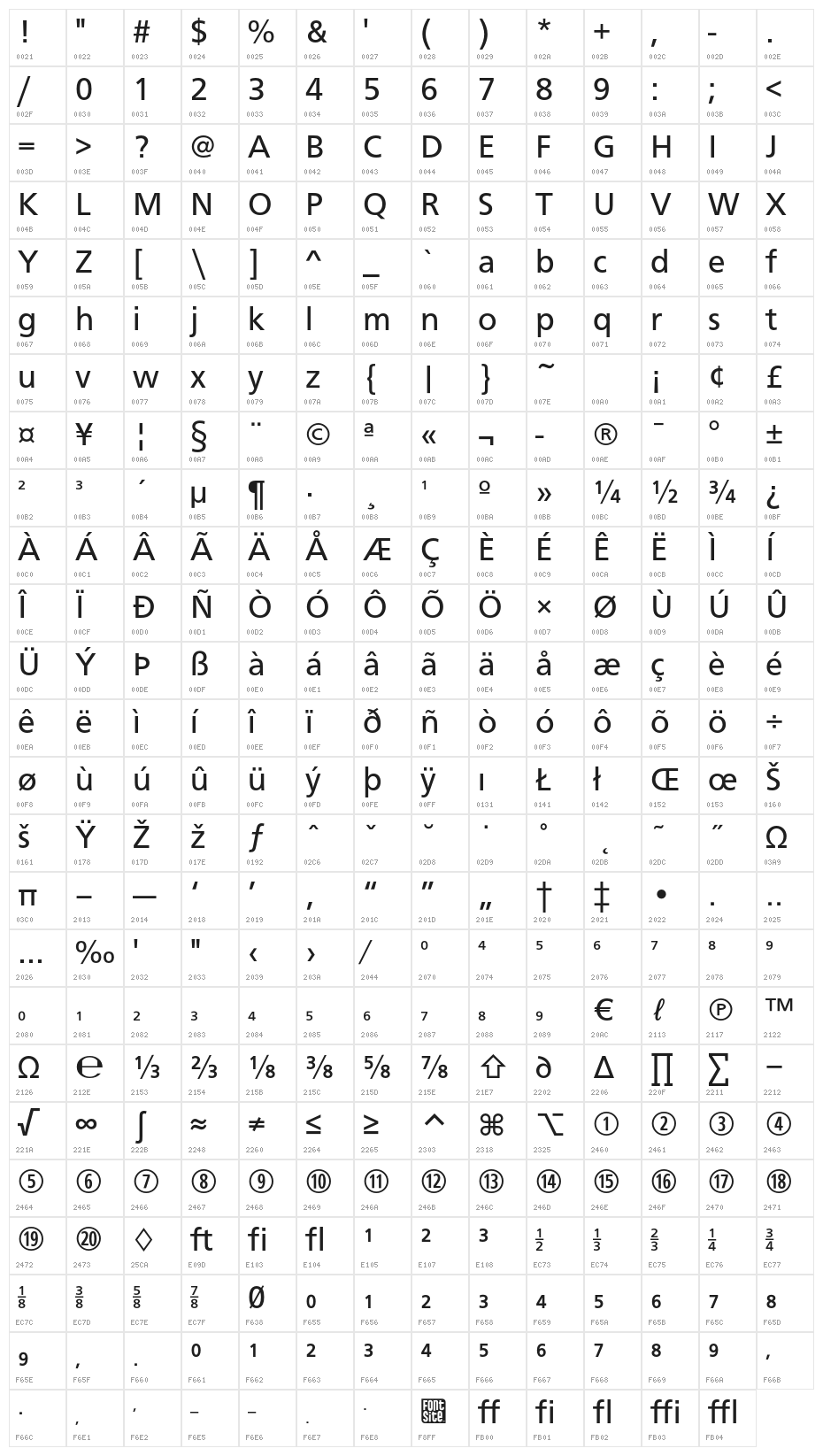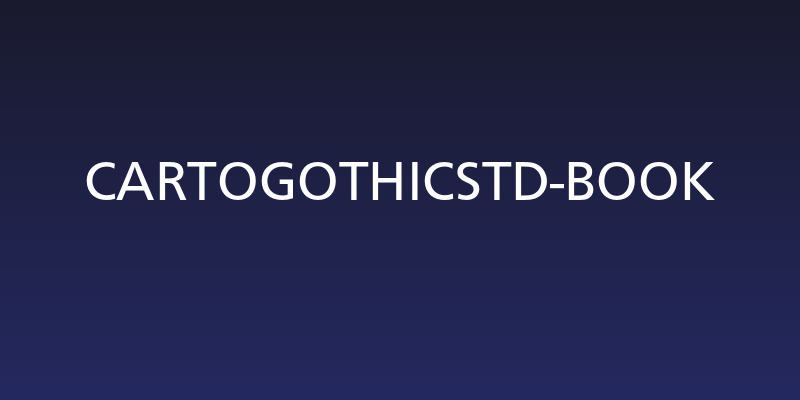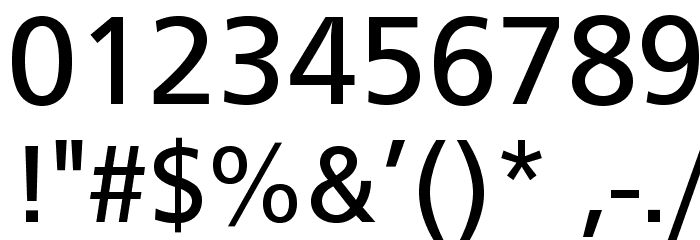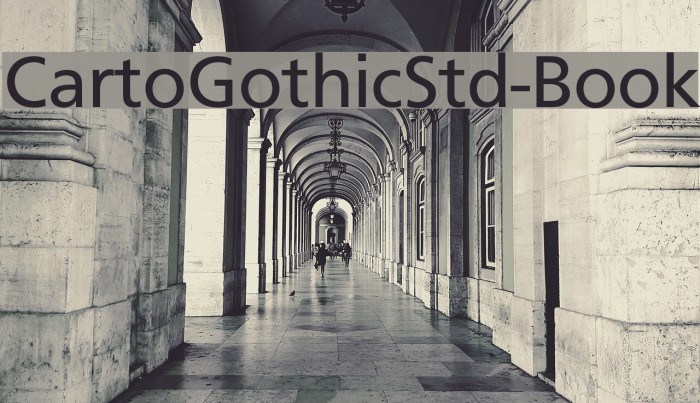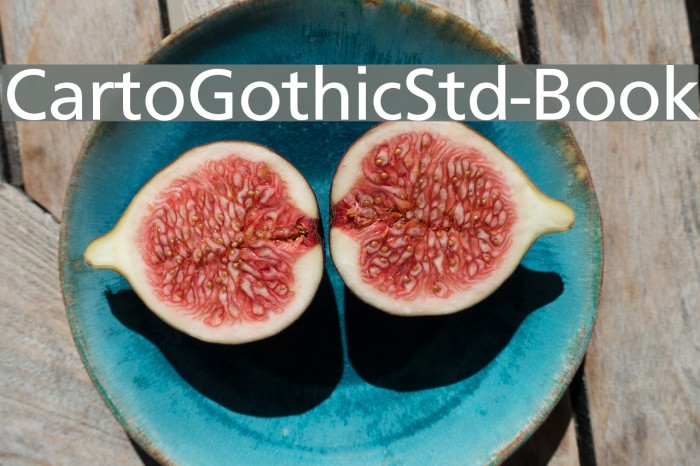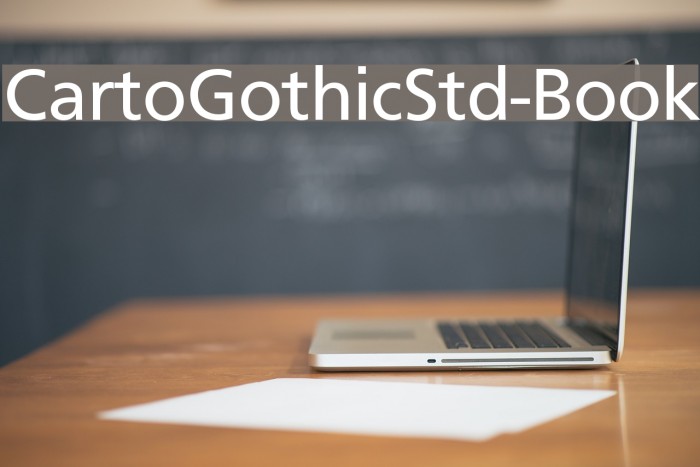
CartoGothicStd-Book Font
CartoGothicStd-Book Description
This font features a clean and modern sans-serif style with a geometric structure. The characters are well-balanced, offering a harmonious appearance that is both professional and approachable. The uppercase letters are bold and assertive, while the lowercase letters maintain a friendly and accessible look. The numerals are clear and easy to read, making them suitable for various applications. Special characters are designed with simplicity in mind, ensuring they integrate seamlessly with the rest of the typeface. Overall, this font is versatile and can be used in a wide range of design projects.